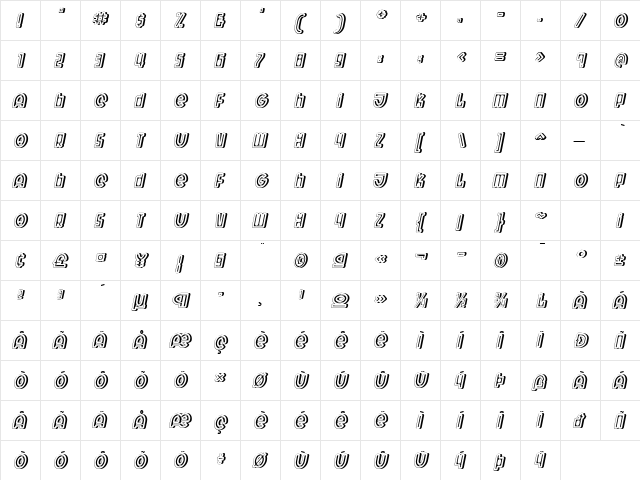
Wit Bold SolidOne Regular
Design Context for Wit Bold SolidOne Typeface
Wit Bold SolidOne is a composed and adaptable typeface that performs quietly and consistently across a wide range of design contexts. The heavy weight commands attention and anchors typographic hierarchies.